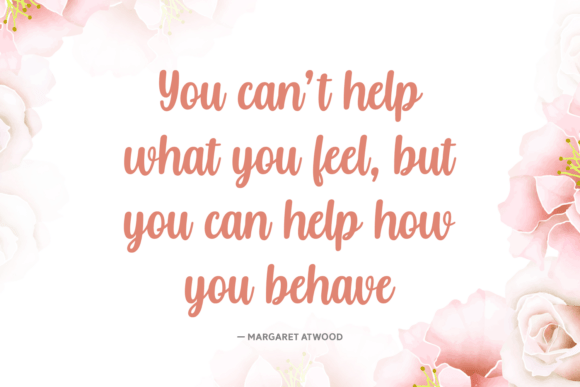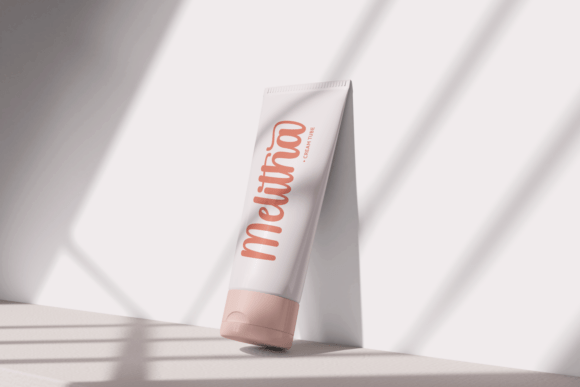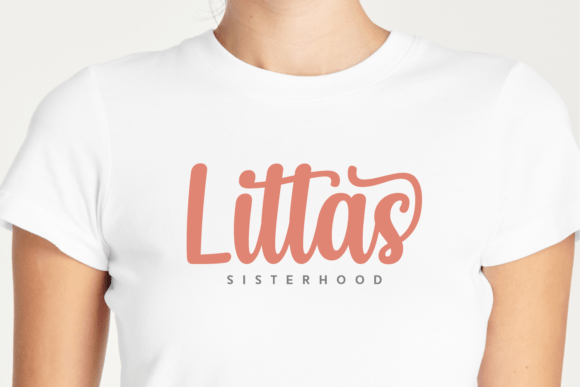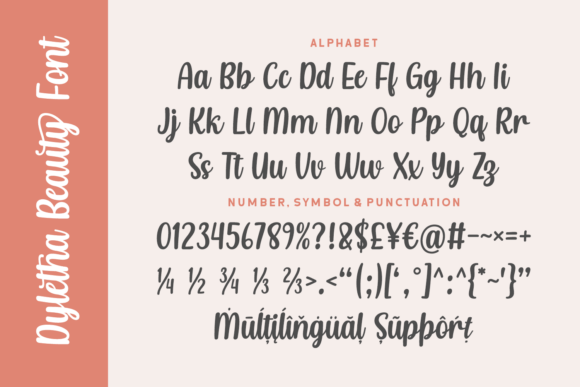
Dyletha Beauty Font: Elevate Your Designs with Elegance and Sophistication
In the world of typography, few fonts capture the essence of beauty, style, and romance as effortlessly as Dyletha Beauty. This stunning script calligraphy font is designed to bring a touch of elegance and sophistication to any design project, making it a perfect choice for beauty branding, wedding materials, fashion labels, and elegant packaging.
The Essence of Dyletha Beauty
Dyletha Beauty is a masterful blend of classic calligraphic artistry and modern design sensibilities. Its smooth, confident curves and stylish swashes evoke a sense of softness and romance, while its confident lines and precise lettering ensure a level of sophistication and refinement. This beautiful font is perfect for designers and crafters looking to add a touch of luxury and glamour to their work.
Key Features of Dyletha Beauty Font
- Smooth and Confident Curves: Dyletha Beauty’s flowing curves and lines create a sense of movement and fluidity, making it perfect for designs that require a touch of elegance and sophistication.
- Stylish Swashes: The font’s stylish swashes add a touch of drama and flair to any design, making it perfect for headings, titles, and emphasis.
- Classic Calligraphic Artistry: Dyletha Beauty’s roots in traditional calligraphy are evident in its precise lettering and elegant lines, making it perfect for designs that require a touch of classic sophistication.
- Modern Twist: The font’s modern design sensibilities ensure that it remains fresh and relevant, making it perfect for contemporary design projects.
Perfect for Beauty Branding and Wedding Materials
Dyletha Beauty’s elegant and sophisticated design makes it a perfect choice for beauty branding and wedding materials. Its smooth curves and stylish swashes evoke a sense of luxury and glamour, making it perfect for:
- Beauty Branding: Use Dyletha Beauty to create stunning logos, packaging, and marketing materials for your beauty brand.
- Wedding Materials: Add a touch of elegance and sophistication to your wedding invitations, programs, and other materials with Dyletha Beauty.
Ideal for Fashion Labels and Elegant Packaging
Dyletha Beauty’s modern design sensibilities and classic calligraphic artistry make it a perfect choice for fashion labels and elegant packaging. Its confident lines and precise lettering ensure a level of sophistication and refinement, making it perfect for:
- Fashion Labels: Use Dyletha Beauty to create stunning logos, labels, and marketing materials for your fashion brand.
- Elegant Packaging: Add a touch of luxury and sophistication to your packaging with Dyletha Beauty, perfect for high-end products and gifts.
Tips for Using Dyletha Beauty Font
- Pair with Neutral Colors: Pair Dyletha Beauty with neutral colors like black, white, and beige to create a clean and elegant look.
- Use for Headings and Titles: Use Dyletha Beauty for headings and titles to add a touch of drama and flair to your designs.
- Experiment with Swashes: Experiment with Dyletha Beauty’s stylish swashes to add a touch of personality and whimsy to your designs.
Dyletha Beauty Font is a stunning script calligraphy font that is perfect for designers and crafters looking to add a touch of elegance and sophistication to their work. Its smooth curves, stylish swashes, and classic calligraphic artistry make it a perfect choice for beauty branding, wedding materials, fashion labels, and elegant packaging. With its modern twist and timeless design, Dyletha Beauty is sure to elevate your designs and leave a lasting impression.